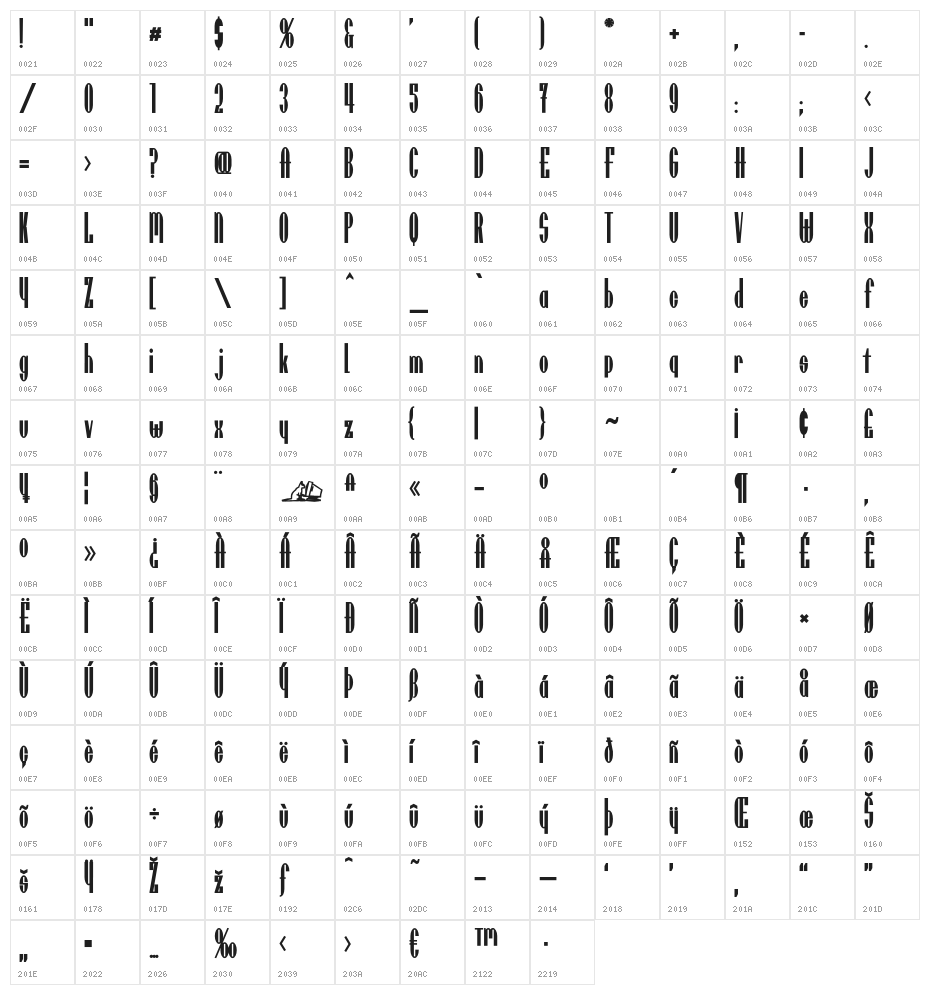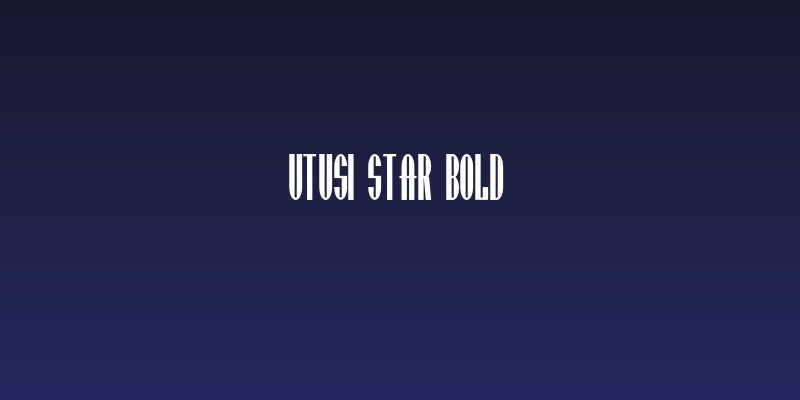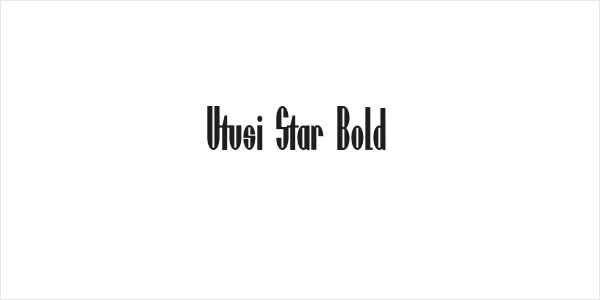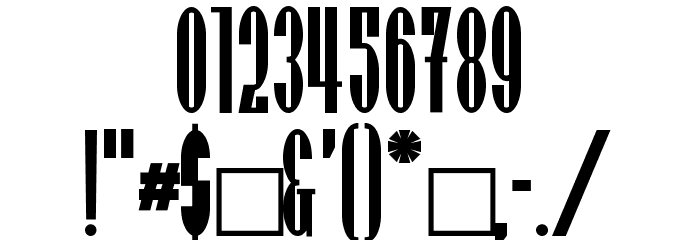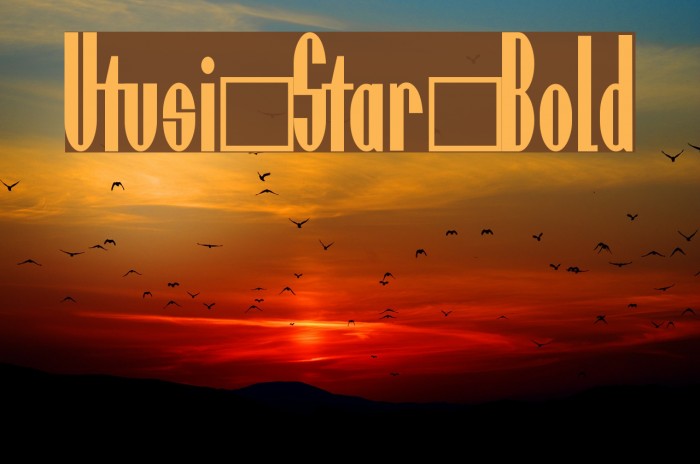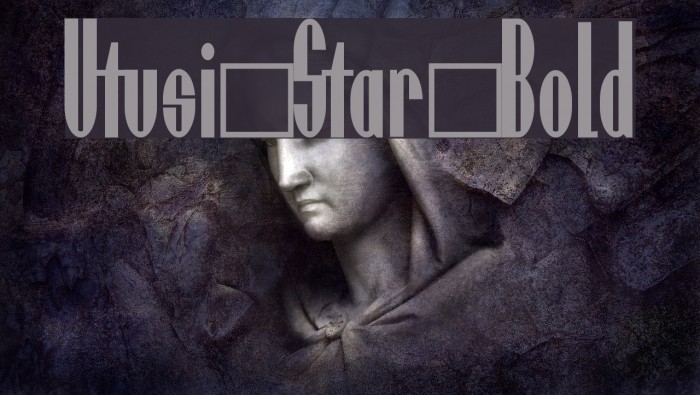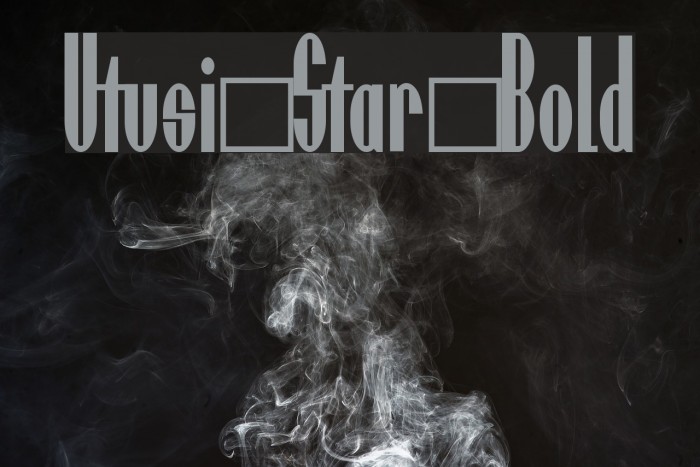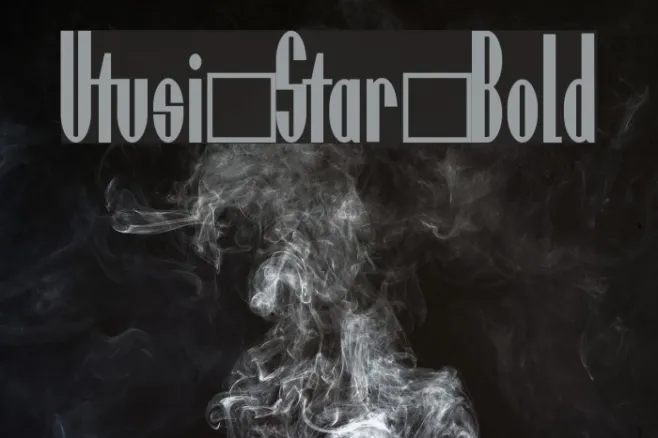
Utusi Star Bold Font
Utusi Star Bold Description
This font features a bold and striking design with tall, narrow characters that create a strong visual impact. The uppercase letters are particularly elongated, giving the font a unique and modern appearance. The lowercase letters maintain the same narrow structure, ensuring consistency throughout the typeface. The numbers and special characters are designed to match the overall aesthetic, with a bold and confident style. This font's high contrast between thick and thin strokes adds to its dramatic and eye-catching look, making it ideal for attention-grabbing designs.